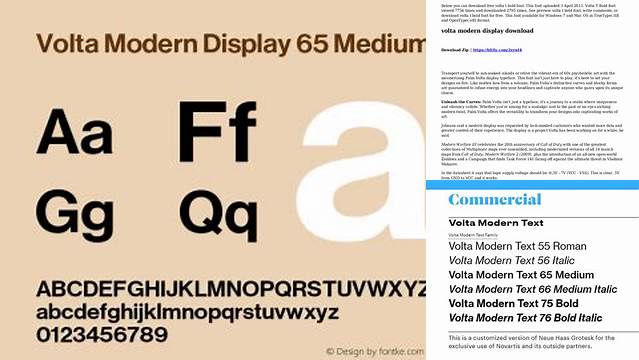
Hey design enthusiasts! 👋 Let's dive headfirst into the world of typography and explore the awesome Volta Modern Font. This isn't just any font; it's a stylish and versatile typeface that can seriously elevate your design projects. And guess what? You can get your hands on it for free! This guide will walk you through everything you need to know about the Volta Modern Font free download, from where to find it to how to make the most of it in your designs. So, buckle up, and let's get started!
1. What Makes Volta Modern Font Special?
Alright, let's talk about what makes the Volta Modern Font so cool, shall we? First off, it's got that sleek, modern aesthetic that's super popular these days. Think clean lines, a touch of sophistication, and a readability that's off the charts. Whether you're working on a website, a poster, or a logo, the Volta Modern Font can bring a touch of elegance and professionalism to your work. Now, the beauty of Volta Modern Font lies in its versatility. It’s not just a one-trick pony; it can adapt to various design styles. Need something bold and eye-catching? It’s got you covered. Want something more subtle and understated? Volta Modern Font does that too. You can use it for headlines, body text, or even small snippets of information. Its clean design ensures that it looks great at any size and scale. Many designers have adopted the Volta Modern Font because of its readability and flexibility. You will not regret choosing this font. The Volta Modern Font is not overly complex, it’s easily accessible to both seasoned professionals and design newbies. That’s a major win! It's the perfect blend of style and usability. It’s one of those fonts that just 'works', regardless of the project. You'll find that it will quickly become a go-to choice for your designs. This adaptability ensures your message is communicated clearly while maintaining a high level of visual appeal.